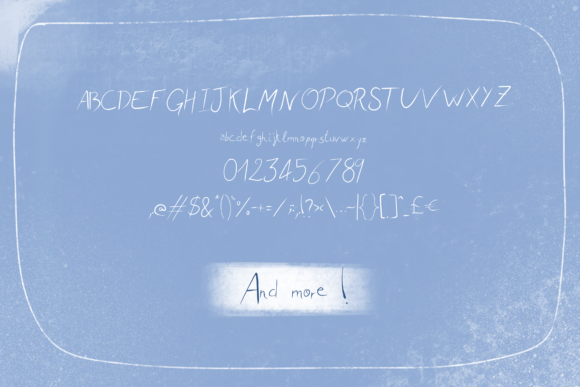
Introduction to Pathetic Font
Pathetic is a fun and light handwritten font with a cool feel.
It will turn any design project into a true standout .
Key Features of Pathetic Font
Why Choose Pathetic Font?